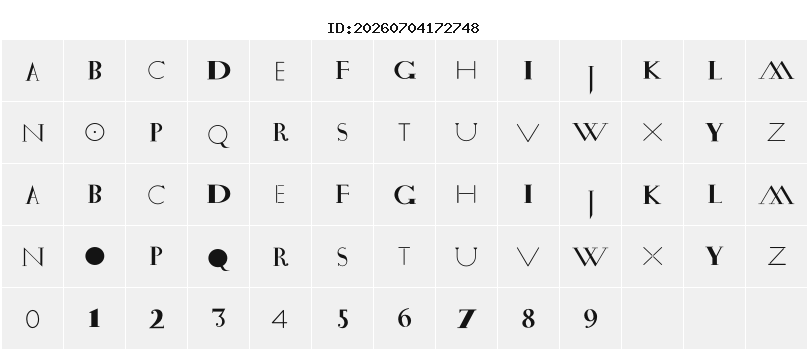
Drone Preview
• Font Name: Drone
• Full Font Name: DroneBold
About Drone.otf
Drone.otf is a modern, elegant sans-serif font designed for ultimate readability and visual harmony. Perfect for branding, headlines, web design, and print materials.